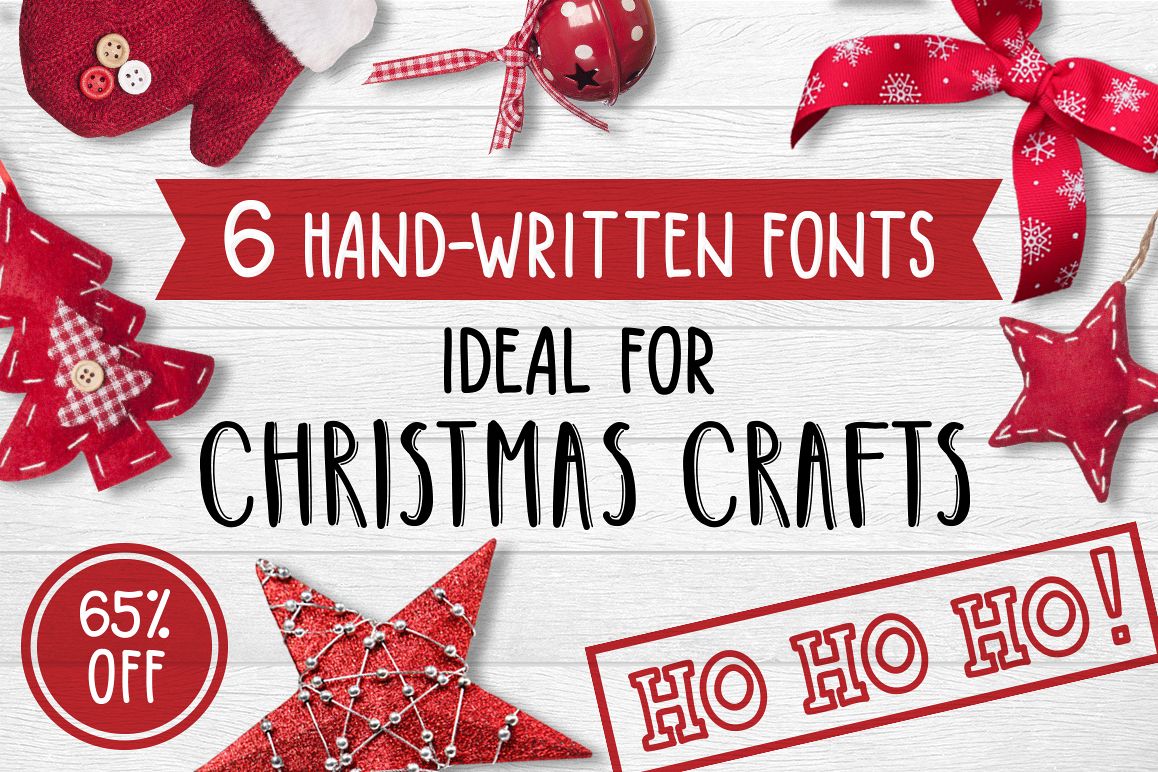
6 Fonts Christmas Collection
Caramel
Melissa
Simplepleasures
Cutie
Darkside
Summerwine
The
collection includes 6 hand-drawn fonts that are very friendly to each other and
fit greatly for making Christmas cards, signing tags for presents, to improve
Christmas photos and illustrations. Even if you don’t want to use them for
Christmas decor they are perfect for modern products design, logo, t-shirt
prints, postcards and so on.
All the
included fonts contain capital, lowercase letters, numbers and most characters
from your keyboard.